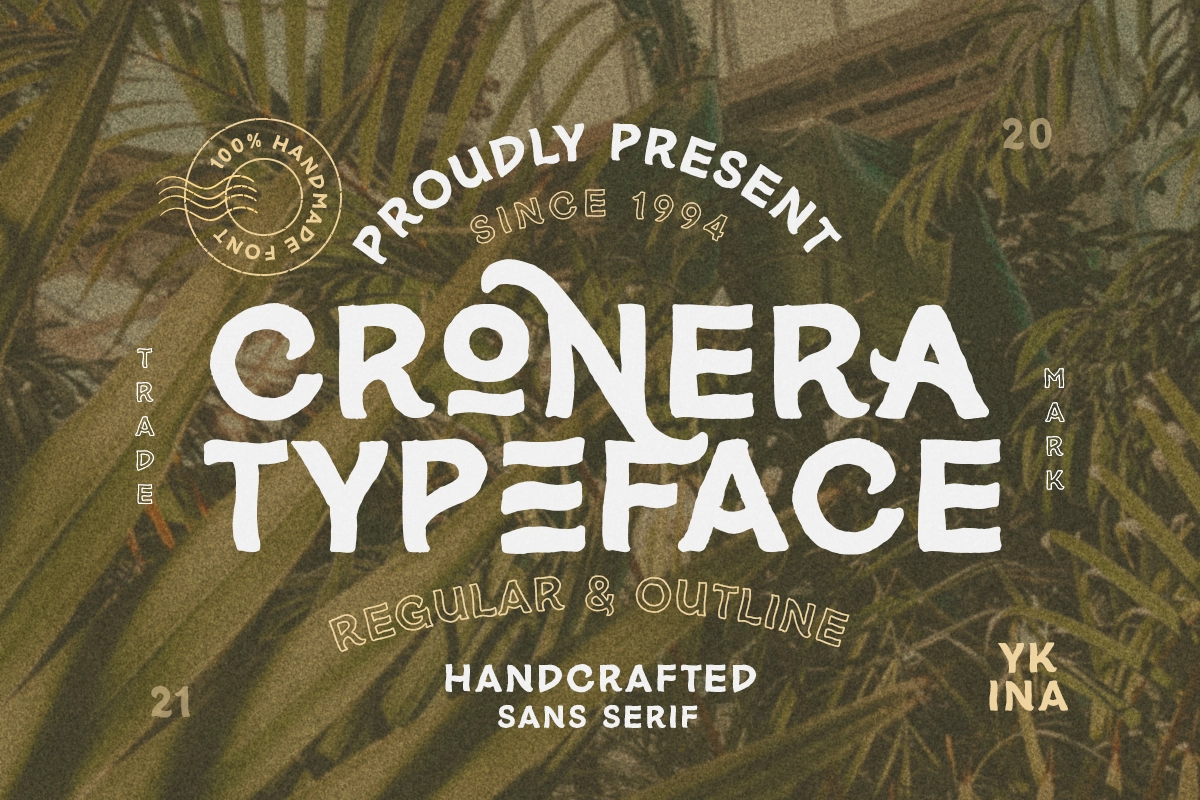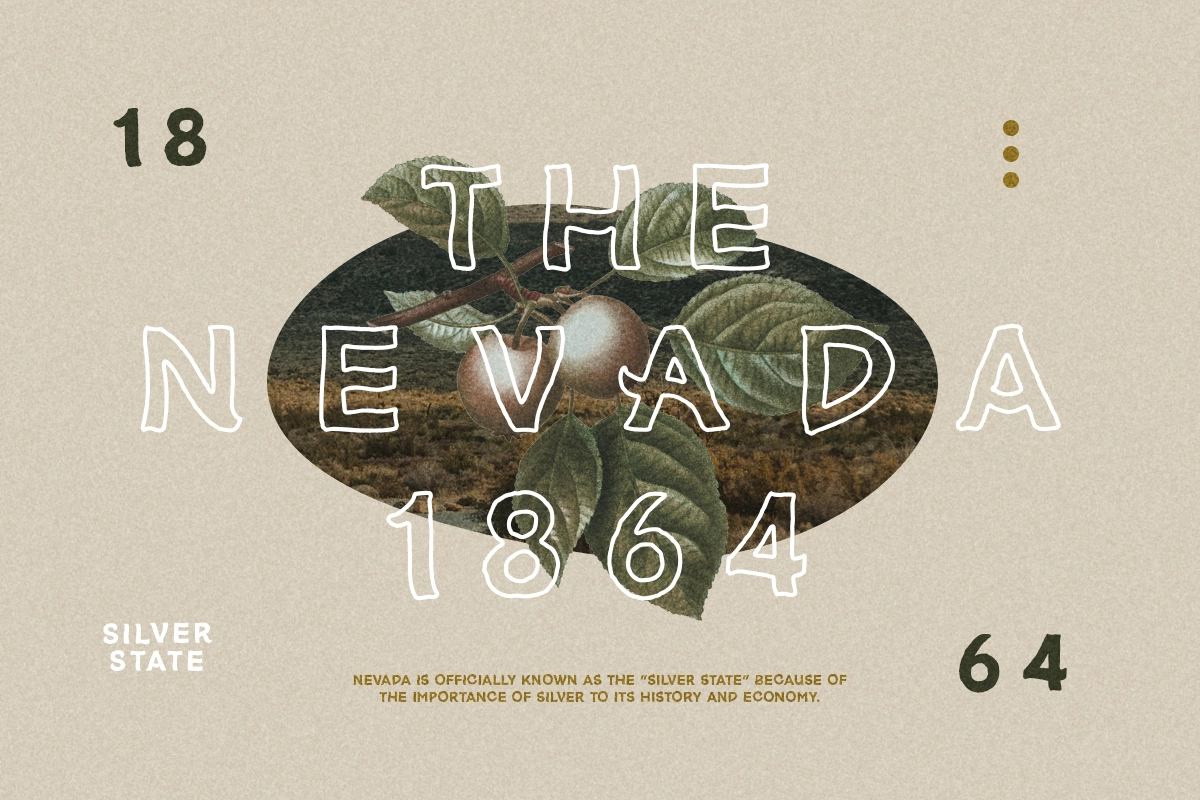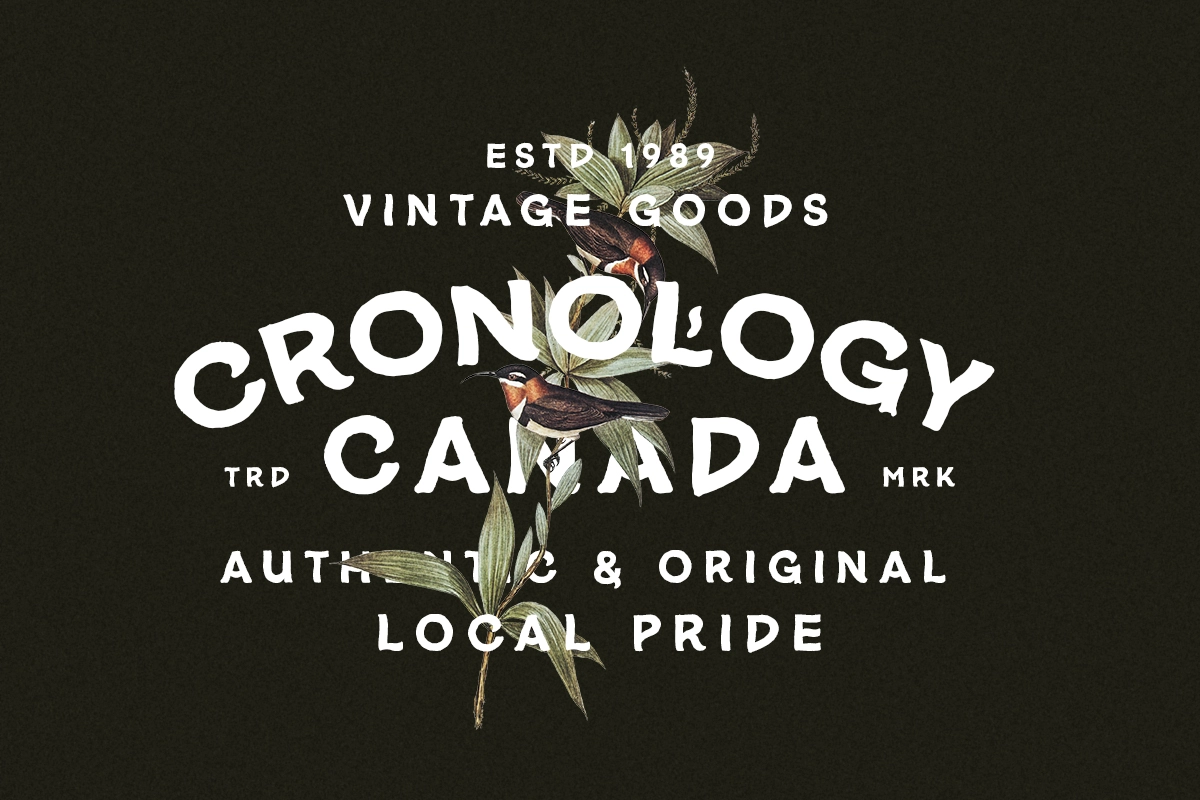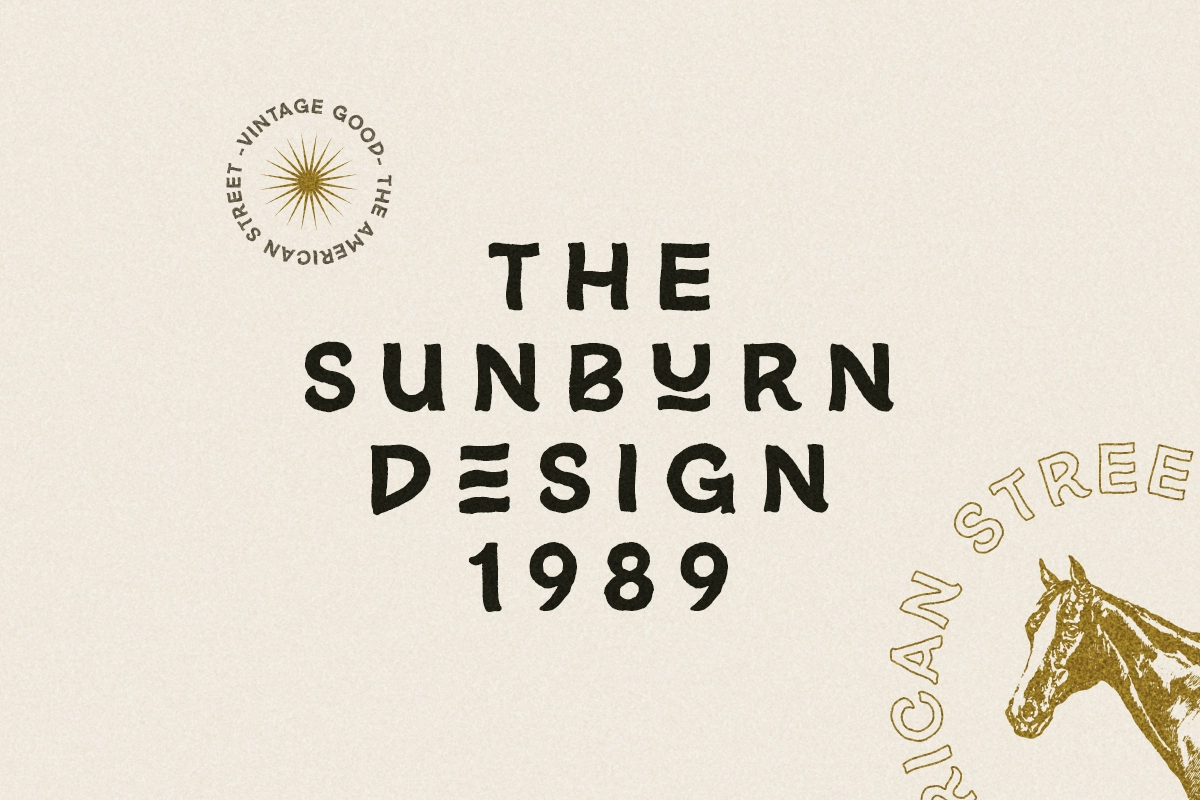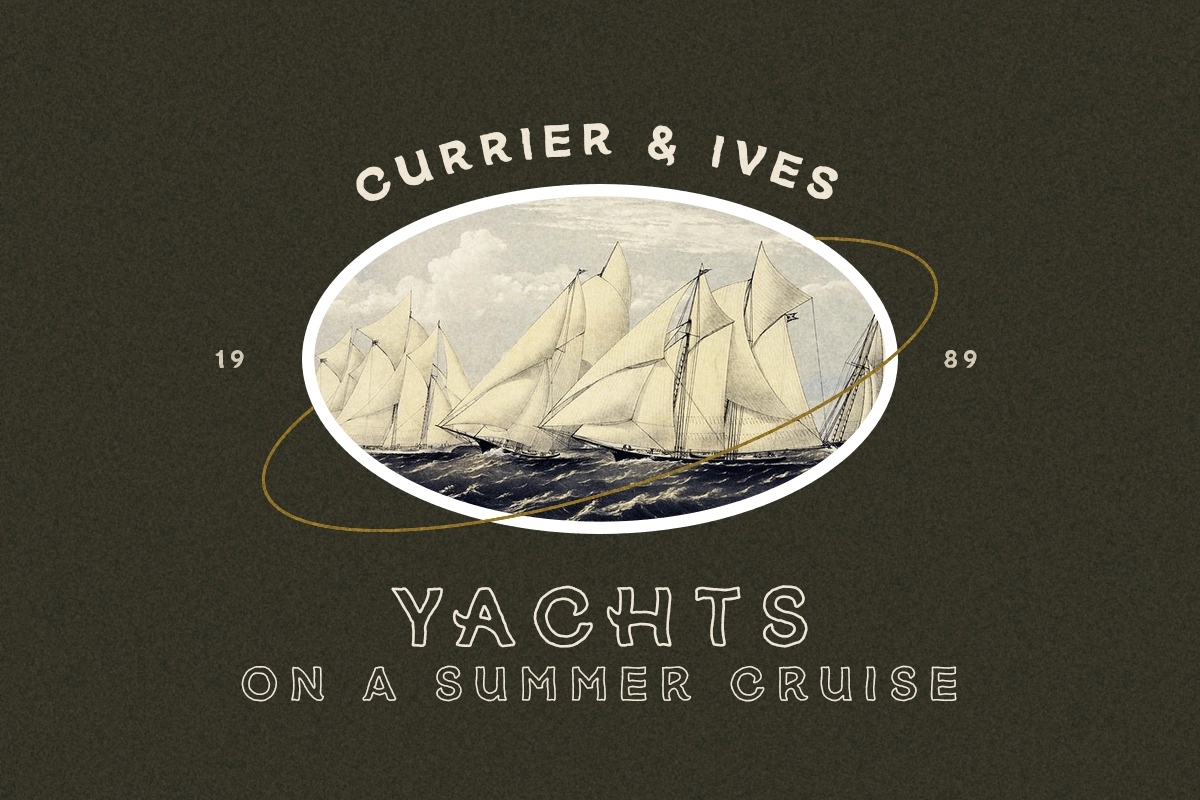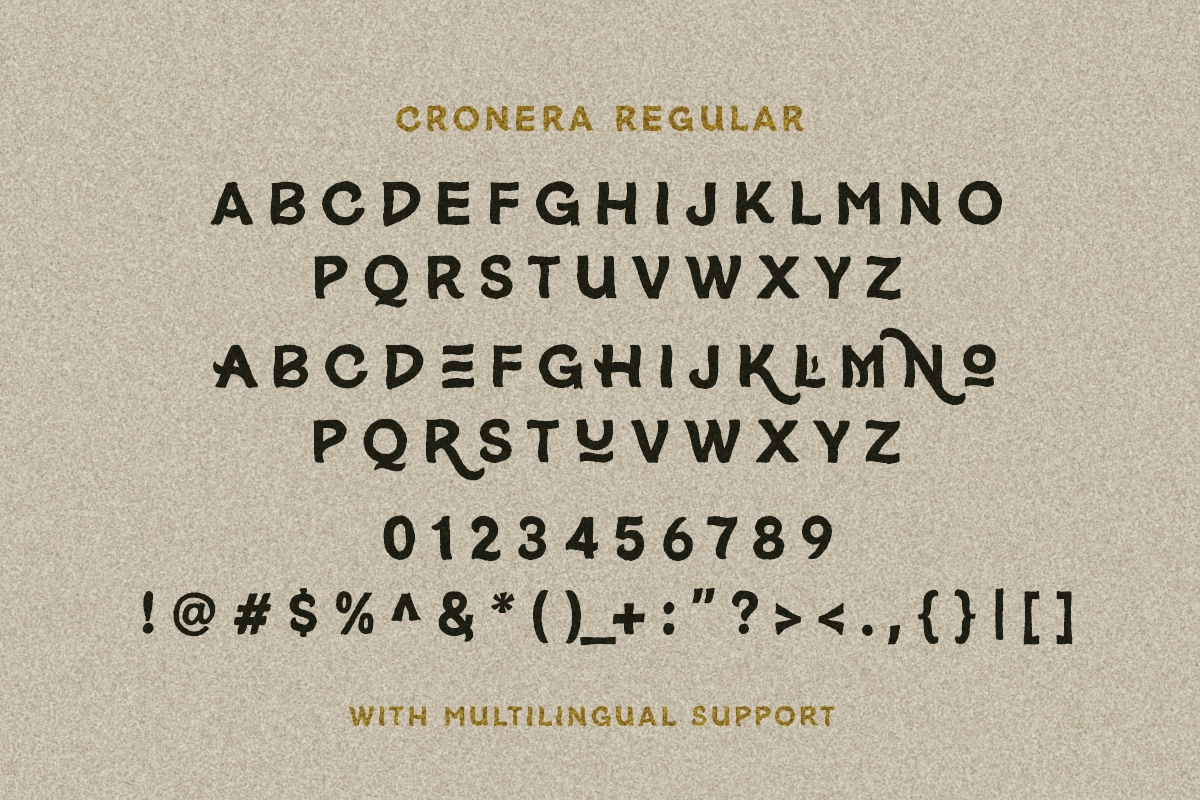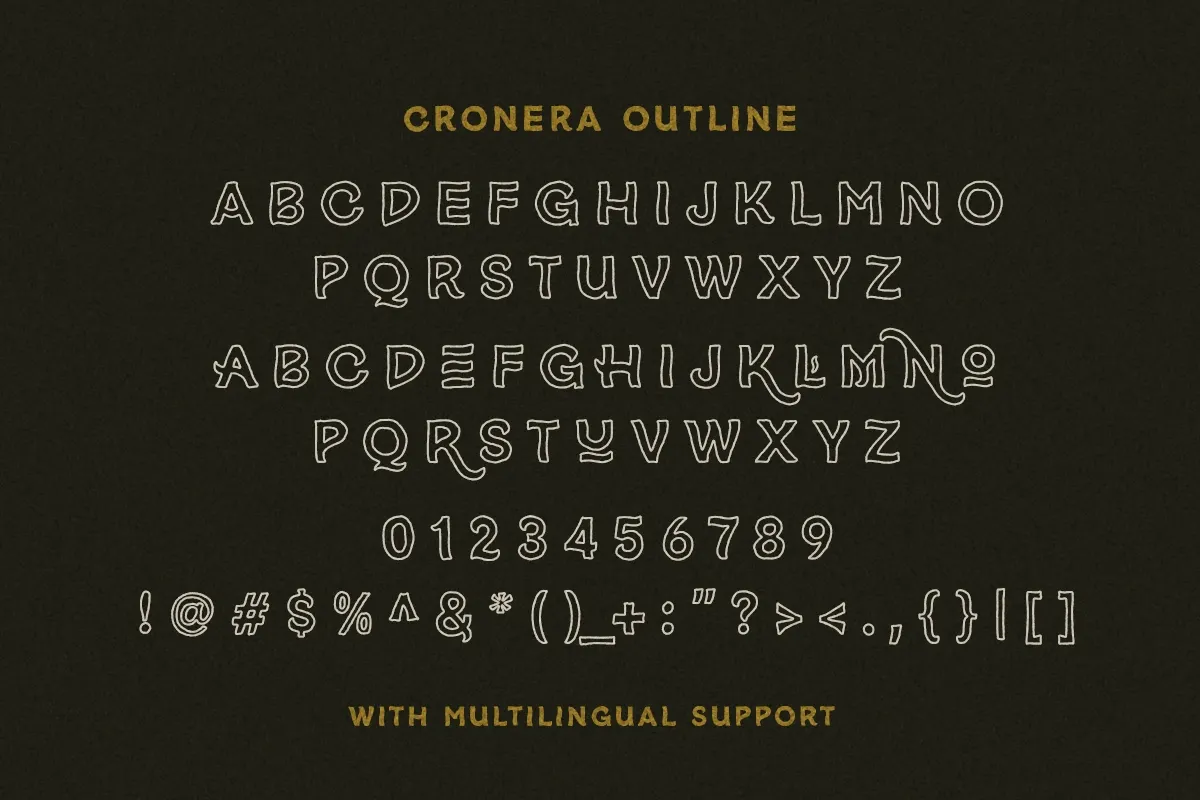
Cronera - Vintage Display Font
Cronera – Vintage Display Font is a handcrafted sans serif typeface infused with authentic hand-lettering character. Designed with carefully shaped letterforms, it delivers a natural, humanist feel that brings warmth and personality to any creative project.
Blending vintage charm with modern clarity, Cronera is perfect for book covers, apparel design, quote graphics, posters, packaging, and branding materials. Its expressive style makes headlines stand out while maintaining excellent readability.
The font also includes an outline version, giving you extra flexibility to experiment with layered typography, bold titles, and eye-catching compositions. With multilingual support, Cronera is ready for both local and international projects.
• Handcrafted vintage display style
• Sans serif with hand-lettering vibes
• Regular and outline versions included
• Uppercase & lowercase characters
• Numerals and punctuation
• Ideal for book covers, t-shirts, quotes, and branding